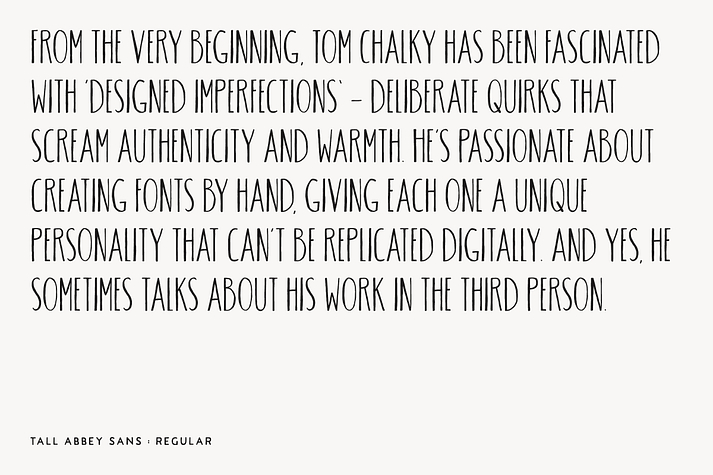
TC Tall Abbey Sans
TC Tall Abbey Sans is a hand display and hand drawn font family. This typeface has three styles and was published by Tom Chalky.
Proudly introducing ‘TC Tall Abbey Sans’ - A quirky, tall, authentic, and warm font family full of perfect imperfections and personality. Oozing all the joys of handwritten typography, Tall Abbey effortlessly infuses a human touch into our digital world and your design projects.
An entirely uppercase typeface where the lowercase glyphs offer slight variations of its counterpart, improving the handwritten effect.